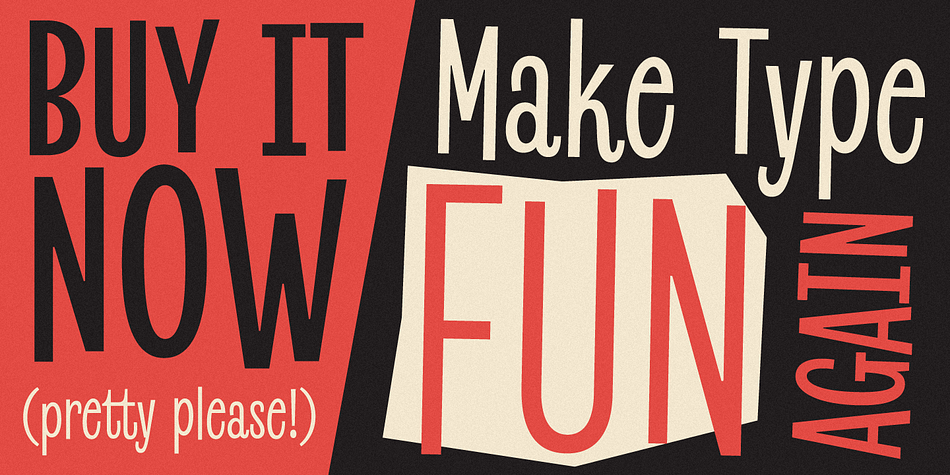
Revla Sans
Designed by Dave Rowland, Revla Sans is a display sans font family. This typeface has four styles and was published by Schizotype Fonts.
Meet Revla Serif‘s dorky younger brother, or should that be brothers? Revla Sans is a grotesque companion to Revla Serif, in four weights. The weights can be used pretty easily as grades, so that text set at different sizes has similar thickness. The contextual alternates engine from its serifed sibling is used to pseudo randomize the text and avoid the monotony of repeating glyphs. Other feature include case sensitive forms, standard and discretionary ligatures, stylistic sets and automagic fractions.